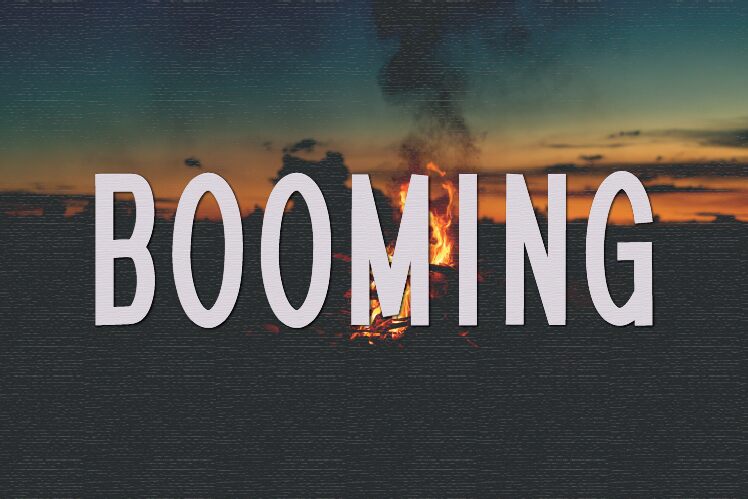
Booming
Booming font by HannaBle Creative Studio is a free bold condensed display typeface that hits like a shout across the page. The letters are tall, dense, and heavy, with thick black strokes packed tightly together so every word feels urgent and amplified. It has a punchy, poster-style presence that grabs attention from a distance and doesn’t let go, turning even short headlines into strong visual blocks.
Using Booming, you can crank up the energy on gig posters, event flyers, YouTube thumbnails, streetwear graphics, bold packaging, and eye-catching social media covers. This free font thrives at oversized scales where its chunky, vertical forms can really slam against the margins. Pair Booming with a clean, neutral sans serif for body text and supporting details, keeping it as the star for big, loud words that need to be seen first.